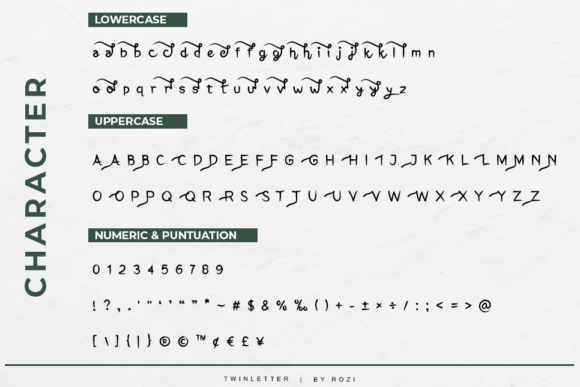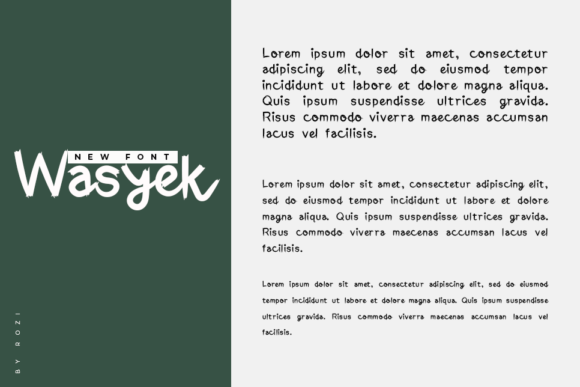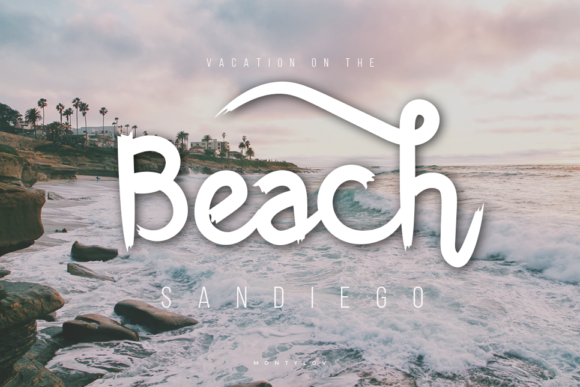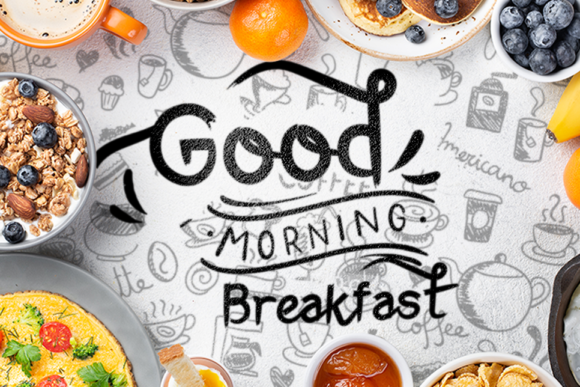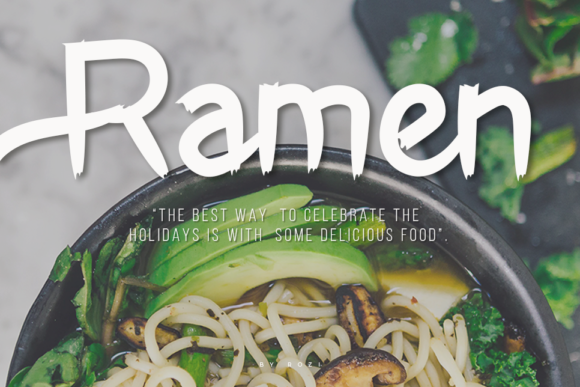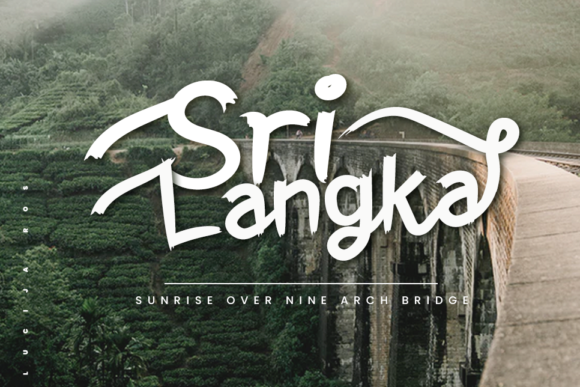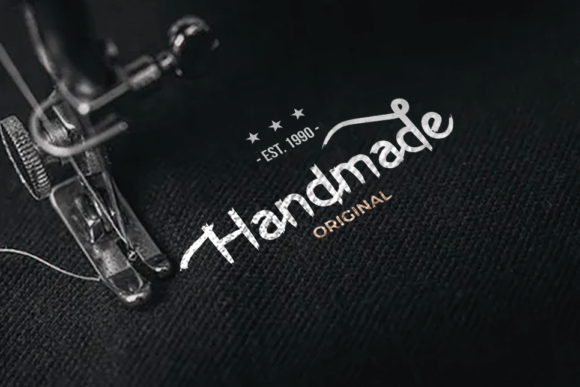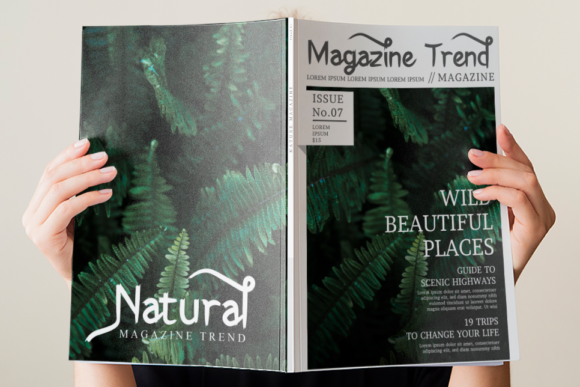
Wasyek Font
About Wasyek Font
Wasyek is a cute and casual handwritten font with an incredibly friendly feel. Use this gorgeous and unique font to bring any DIY project to life!